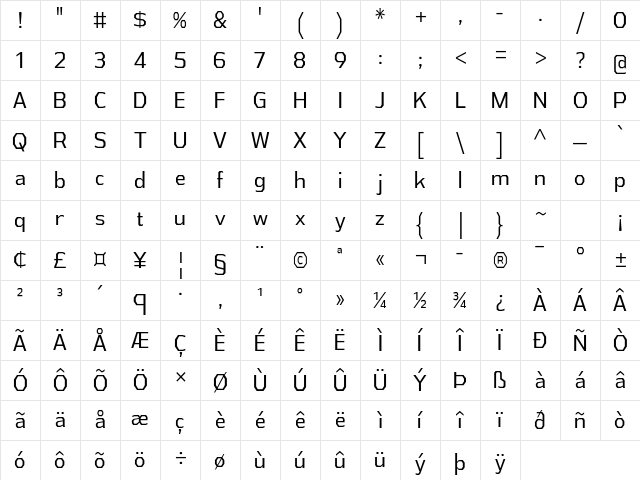
Athabasca Condensed Book
Style: Condensed Book
Design Context for Athabasca
Athabasca is a composed and adaptable typeface that performs quietly and consistently across a wide range of design contexts. Its narrow stance lets it pack a punch even in space-constrained designs.
Pro Tip: Use Athabasca in both headline and body roles to test its range before committing to a single application.